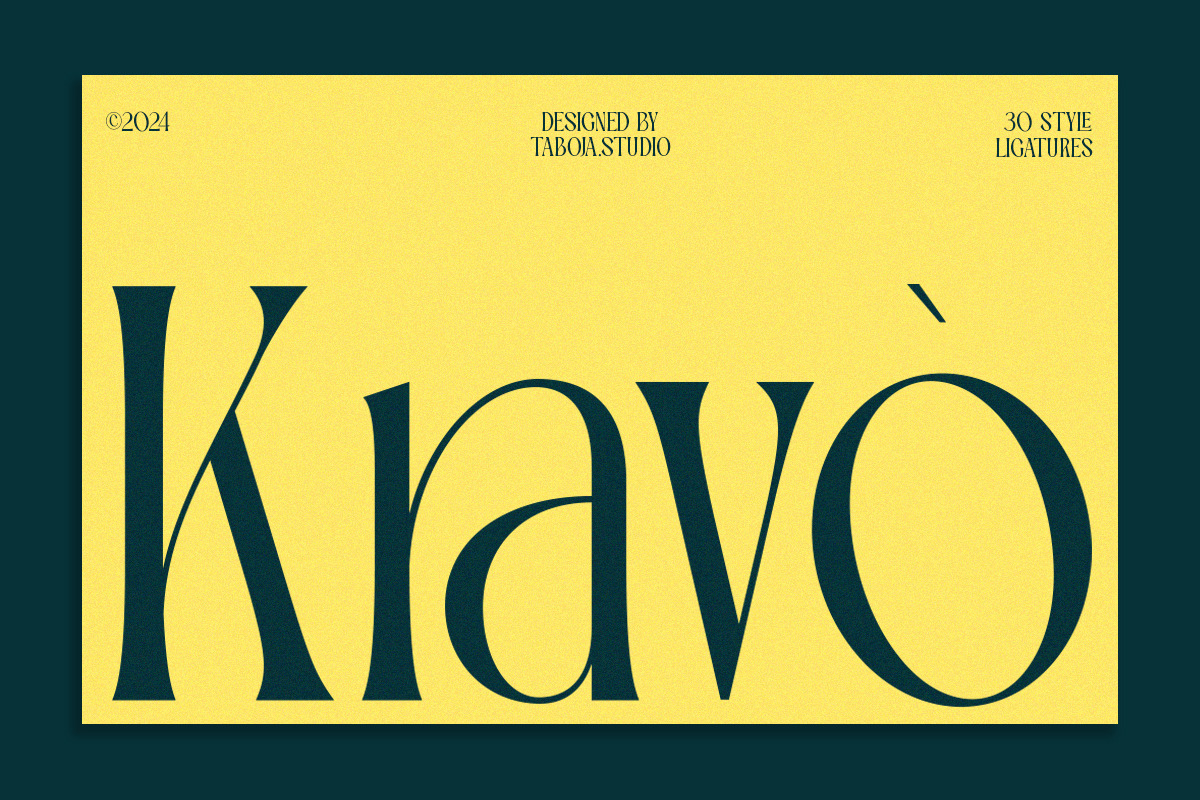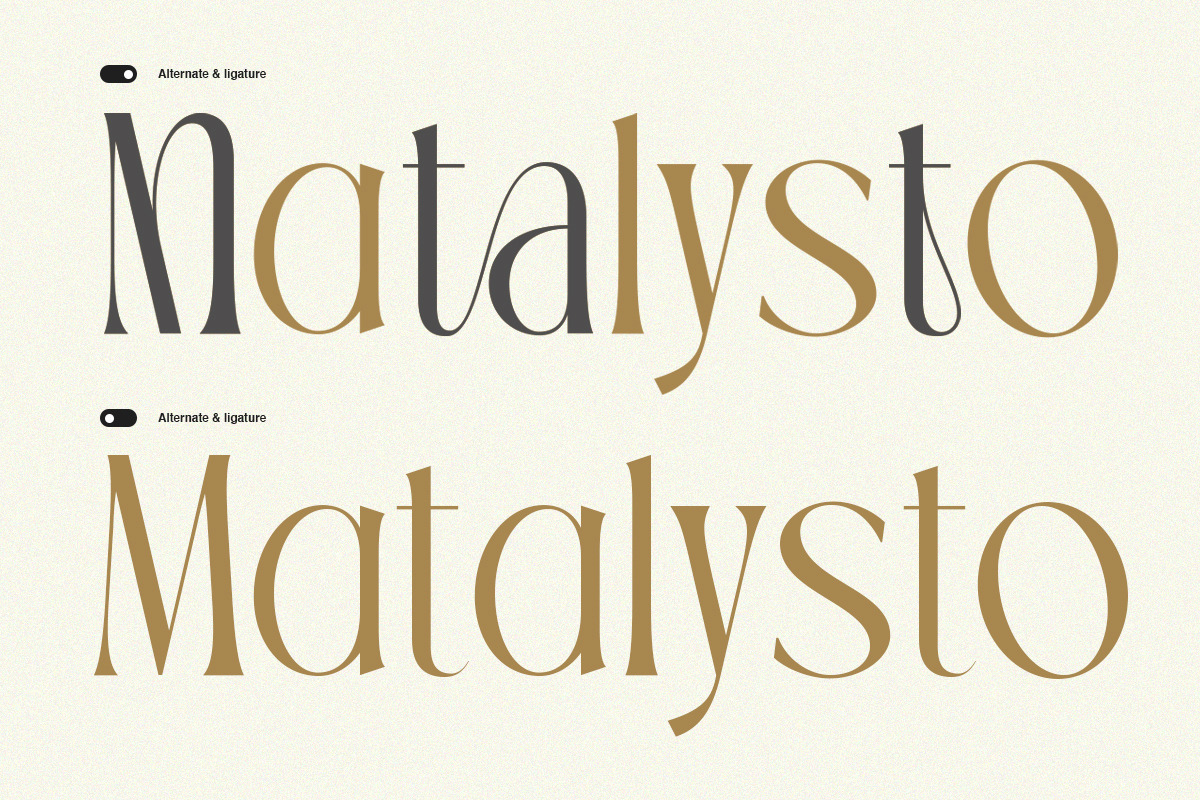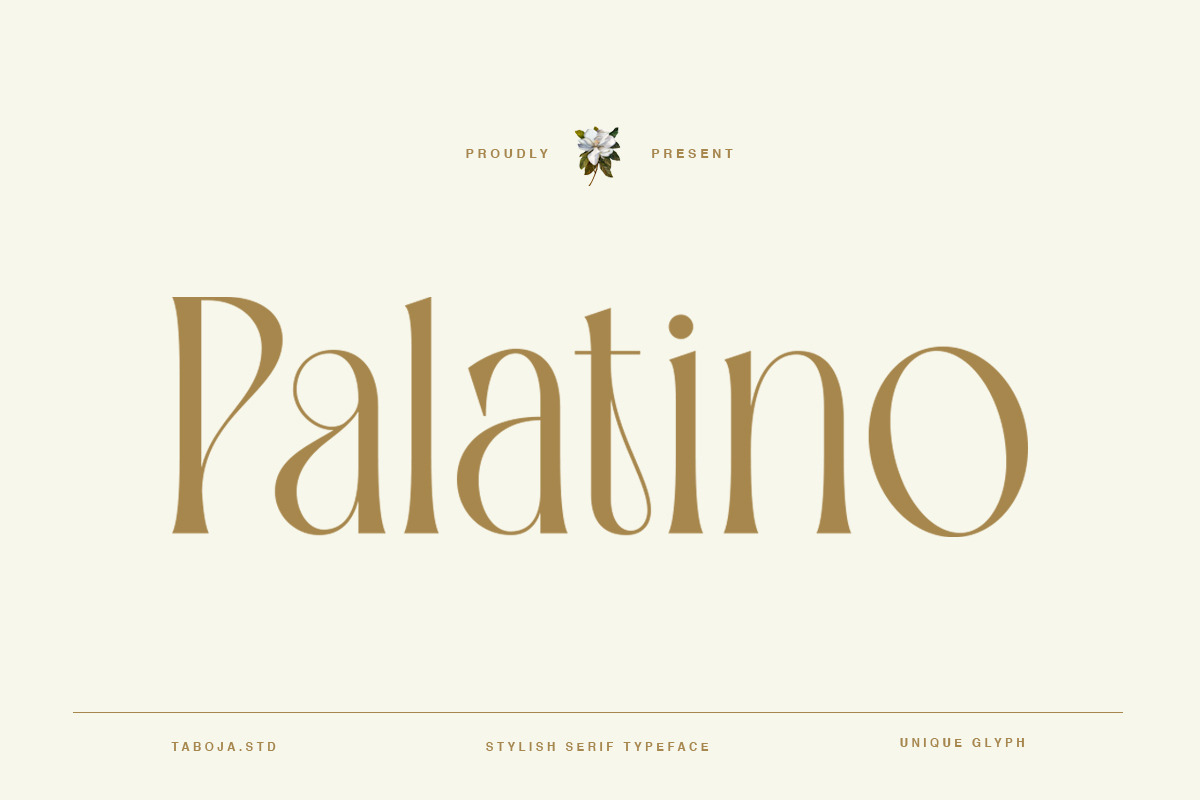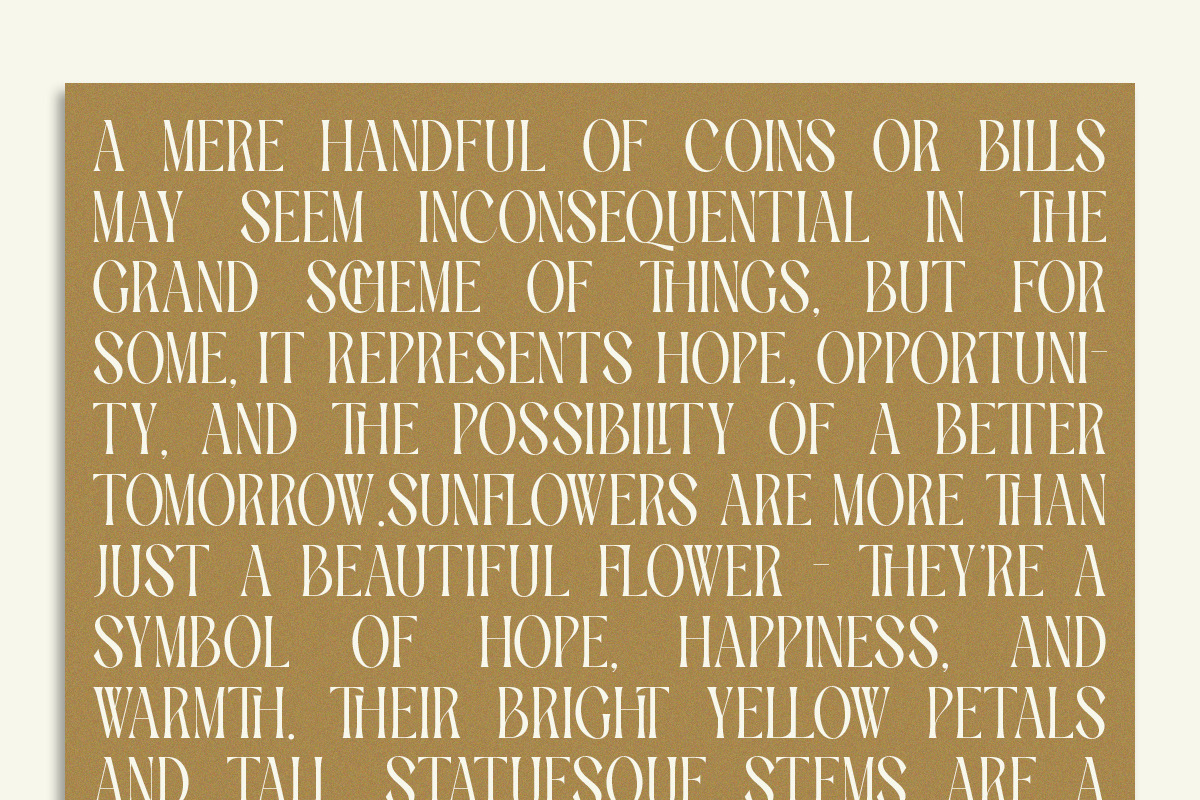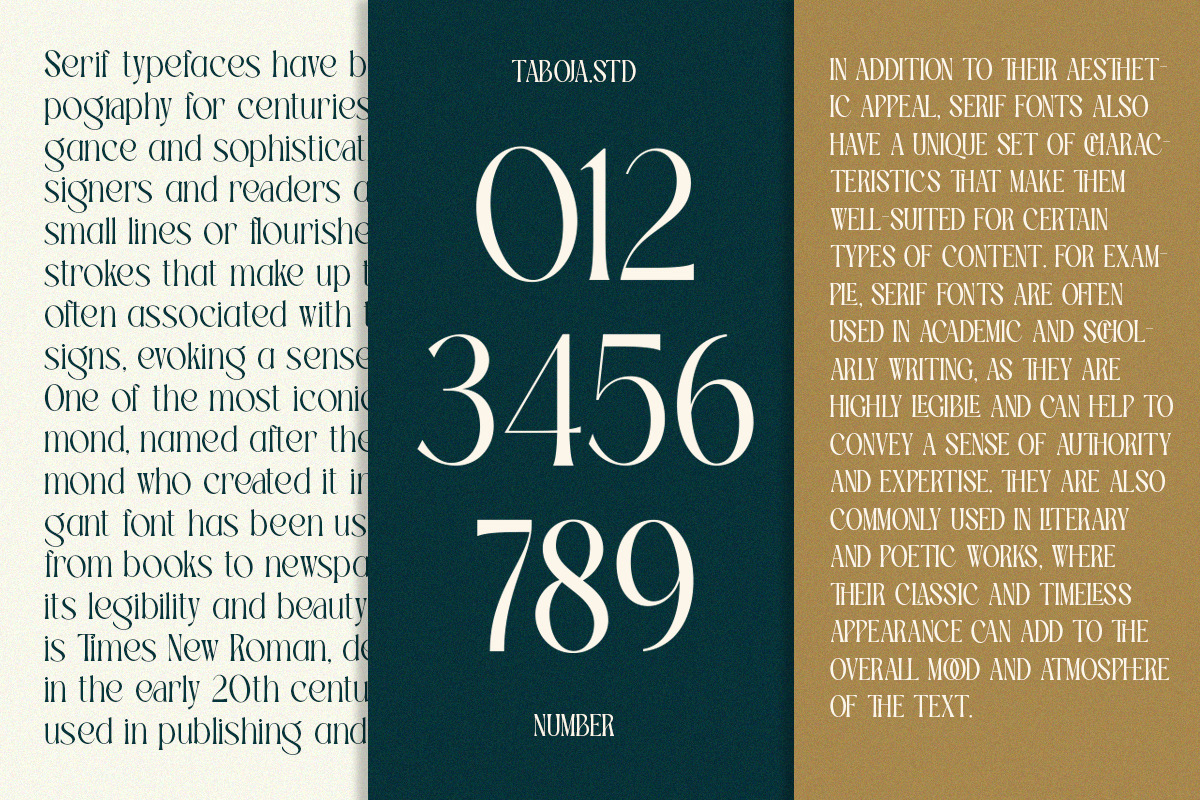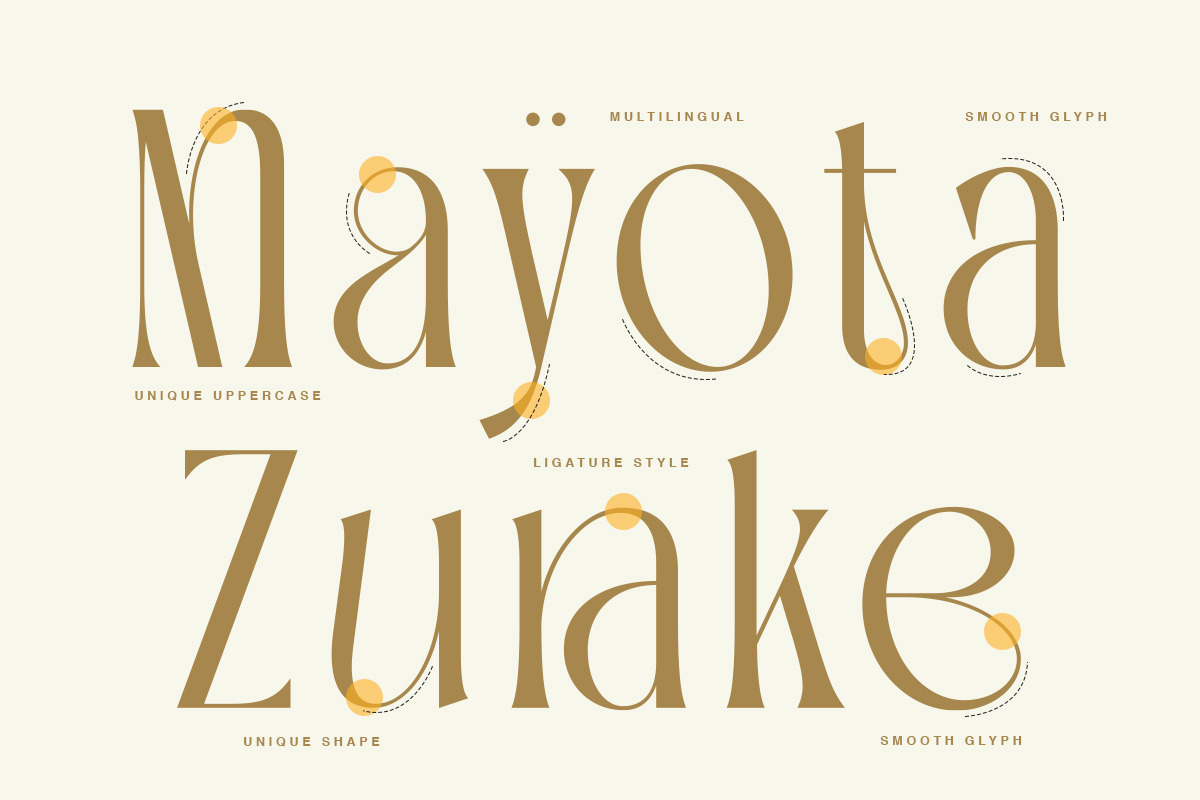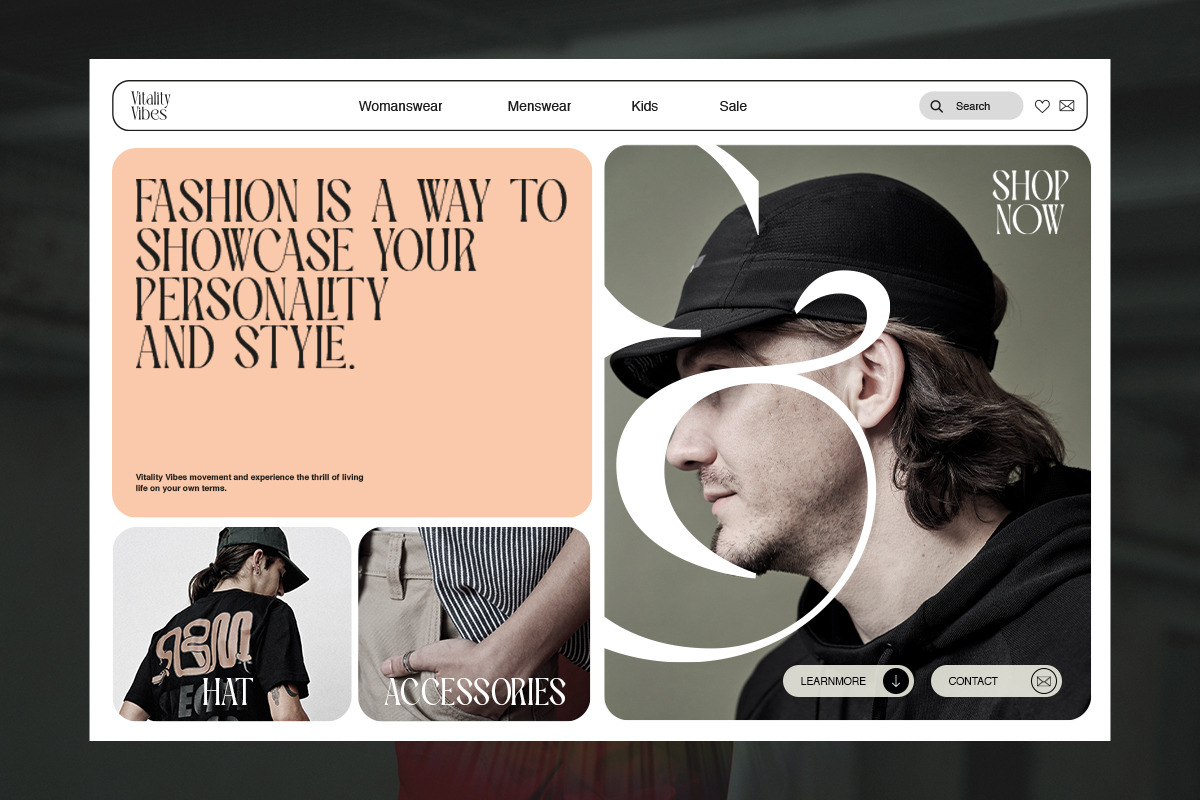
TBJ Palatino Stylish Serif Font
Palatino was born from the desire to create a serif font that combines elegance and simplicity. Inspired by the beauty of classic letterforms, we started by hand-drawing each character. We focused on the fine details of smooth curves and a sleek shape to create a condensed and elegant appearance.
This creative process involved countless hours of hard work and dedication to ensure each letter looked perfect. We aimed to create a font that is not only visually beautiful but also versatile for various design needs. The result is Palatino, a serif font that radiates elegance and the beauty of classic letterforms in every line and curve.
- +50 Various Alternates And Ligatures
A lovely font that worked well for some wedding stationery I was creating for a client. I wish I had spotted the designer has a fuller version of this font you can get directly from them, as I would have got that instead to get all the additional ligatures/variations etc. Do note the full name of the font is "TBJ Palatino" - I already have another Palatino font so got very confused when it wasn't what I'd just bought but then spotted the TBJ!